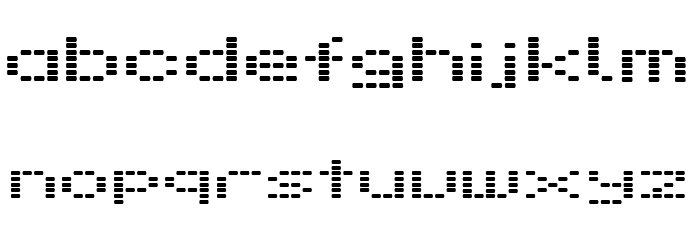
Dot 28 Font
Dot 28 Description
This font features a unique dot matrix style, where each character is composed of a series of evenly spaced dots. The design is reminiscent of digital displays and old-school LED screens, giving it a retro yet modern feel. The characters are clear and legible, with a uniform structure that maintains consistency across both uppercase and lowercase letters, as well as numbers and special characters. The spacing between the dots is consistent, creating a cohesive and organized appearance. This font is ideal for projects that require a digital or technological aesthetic, such as tech-related branding, digital art, or retro-themed designs.
| Proposed Projects | Ideal for digital displays, tech branding, retro-themed designs, and digital art projects. |